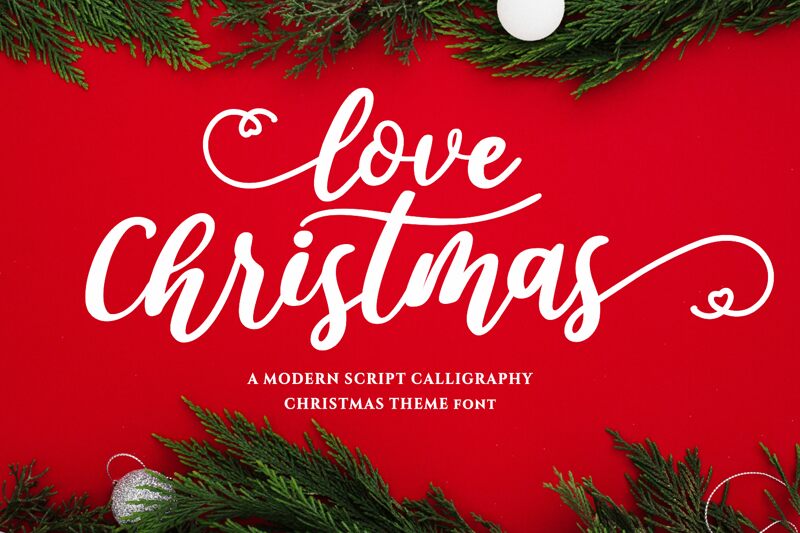
Love Christmas font family by girinesia.std is a free holiday font family with two font styles. It is elegant, modern, and fluid with decorative calligraphic strokes. The artistic and dynamic font holds an inviting festive feel, perfect for bringing a Christmas and holiday feel to any print and design project. Stand out with the letters’ expressive style and bridges that connect them.
The inviting Christmas font was created for the holiday spirit. This spirit can be added using these two fonts for holiday cards, classic posters, and festive flyers. With the help of the Love Christmas font, websites will have a new Christmas theme and packaging designs can match the lovely gift inside. Add the font to branding designs, signature logos, typography artwork, postcards, social media posts, digital portfolio presentations, etc.